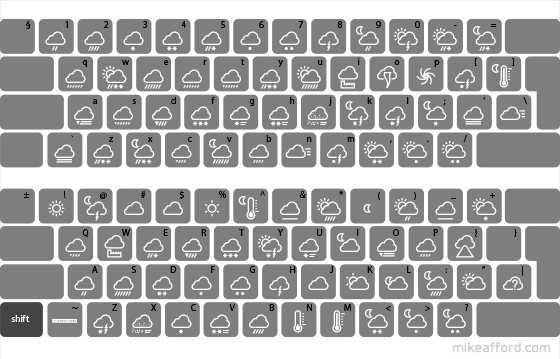
Weather Icon FONT : MS-01
weather icons
The ‘Monochrome Set’ weather icons in font format. Stylish single colour icons. 92 glyphs. TrueType, OpenType and web-font kit.
This is the font version of the ‘Monochrome Set’ Weather Symbol Set. With 92 weather conditions, this icon set is one of the most comprehensive sets available and this new font version allows you to incorporate the symbols in your own projects more easily than ever before. Ideal for mobile, web and print applications.
All of my 92 icon sets come with a full range of weather types including many extra conditions (blowing snow, lightning + hail, volcanic ash, smoke, tornado, freezing fog and many more) making them ideal for use with most popular data providers.
weather icon font MS-01 low resolution preview image
The font contains every single icon from the original set, mapped in order, from 1. sunny (= !) all the way to 91. volcanic ash (= {). The pack comes with a glyph guide listing the weather condition, Unicode value, and corresponding keyboard key. I’ve included a separate guide below for World Weather Online users which lists the WWO code and the corresponding font character for day and night. It’s also downloadable as a text file on the right.
keyboard showing font layout